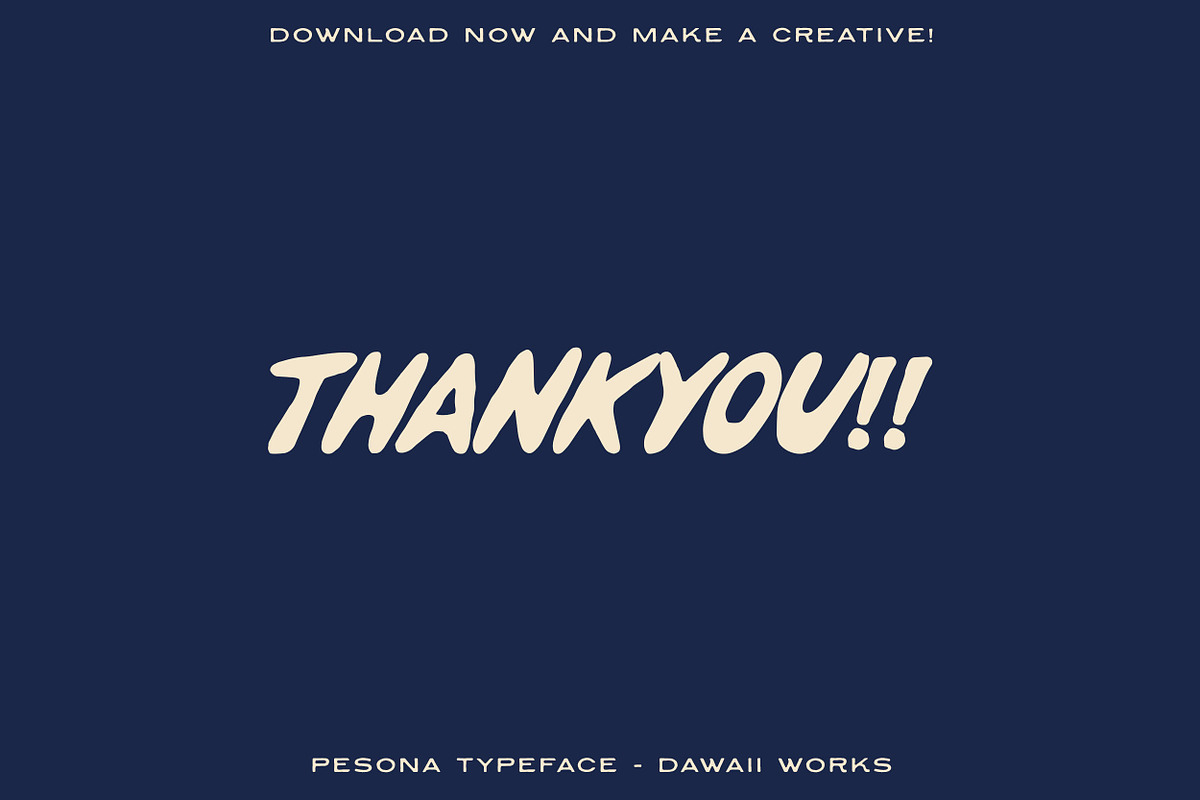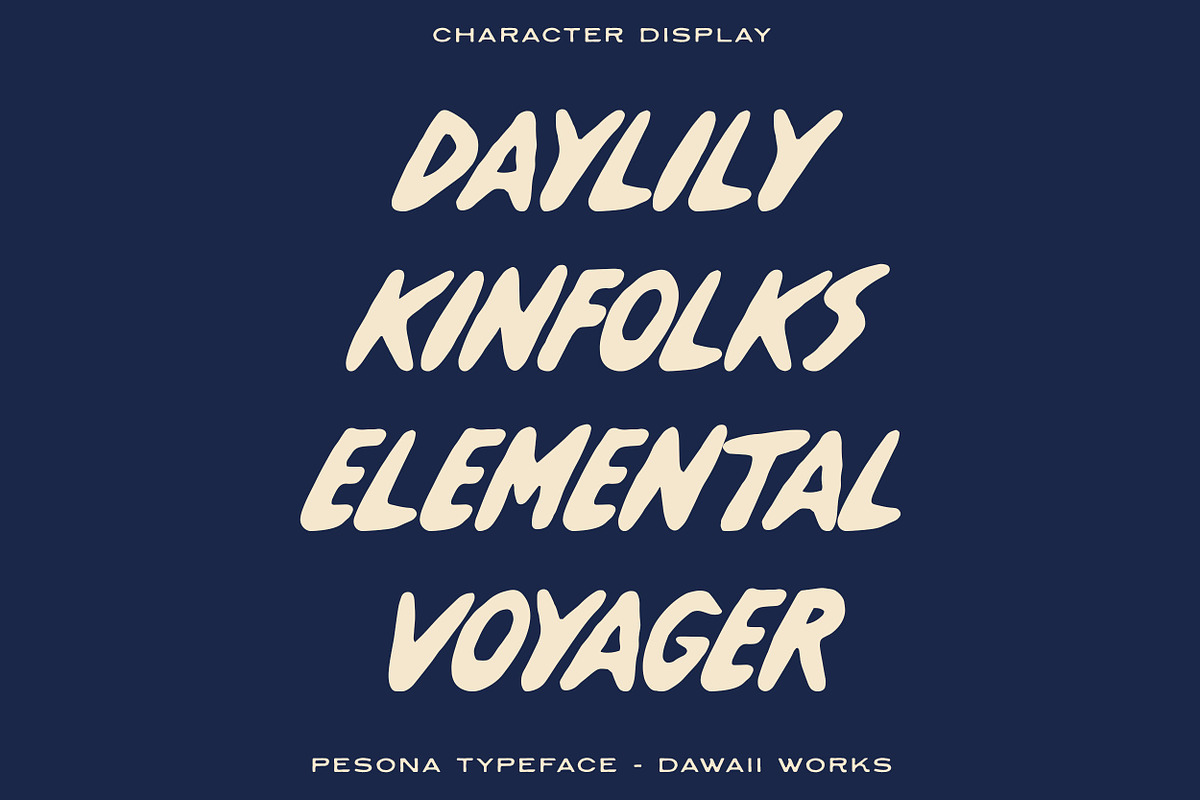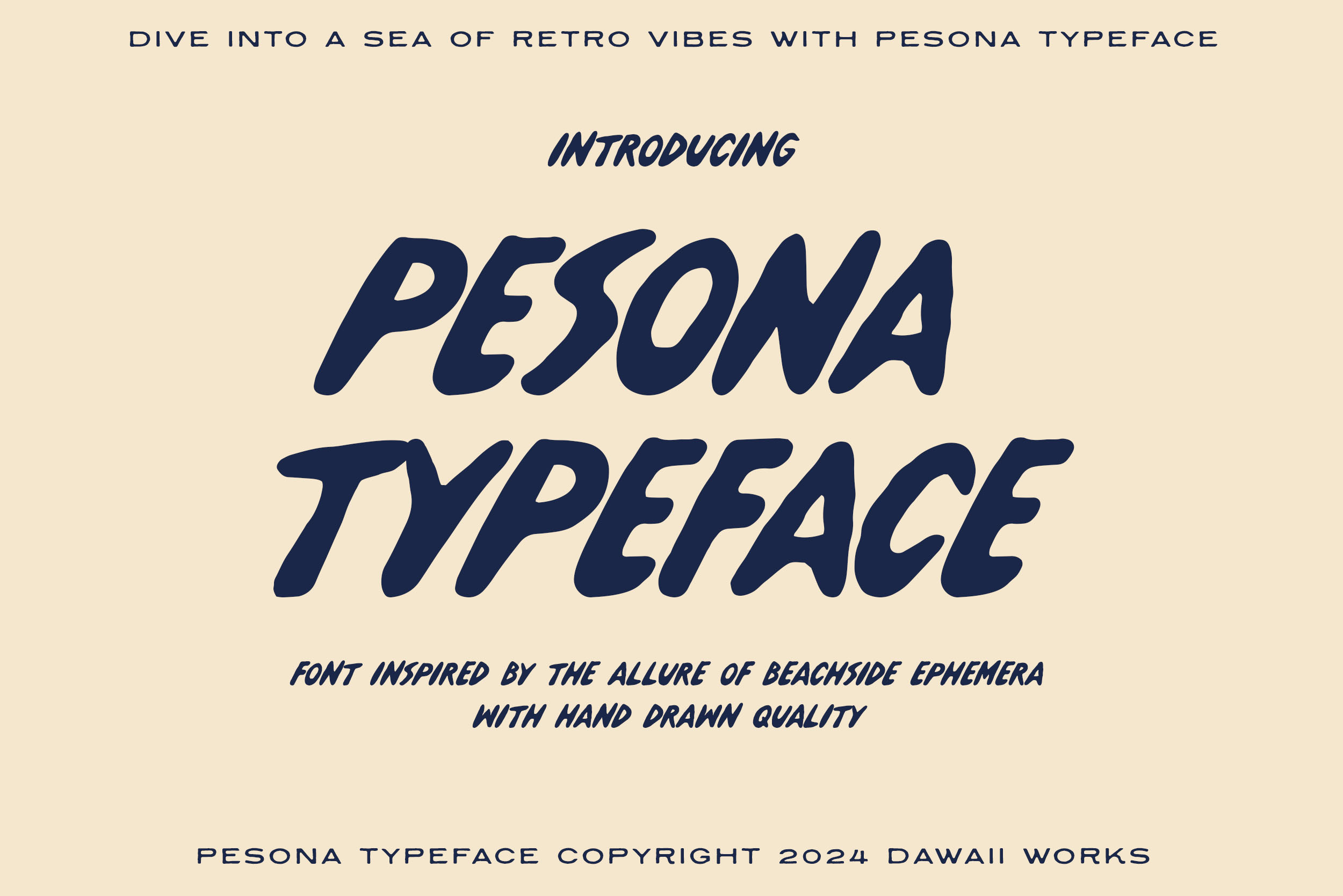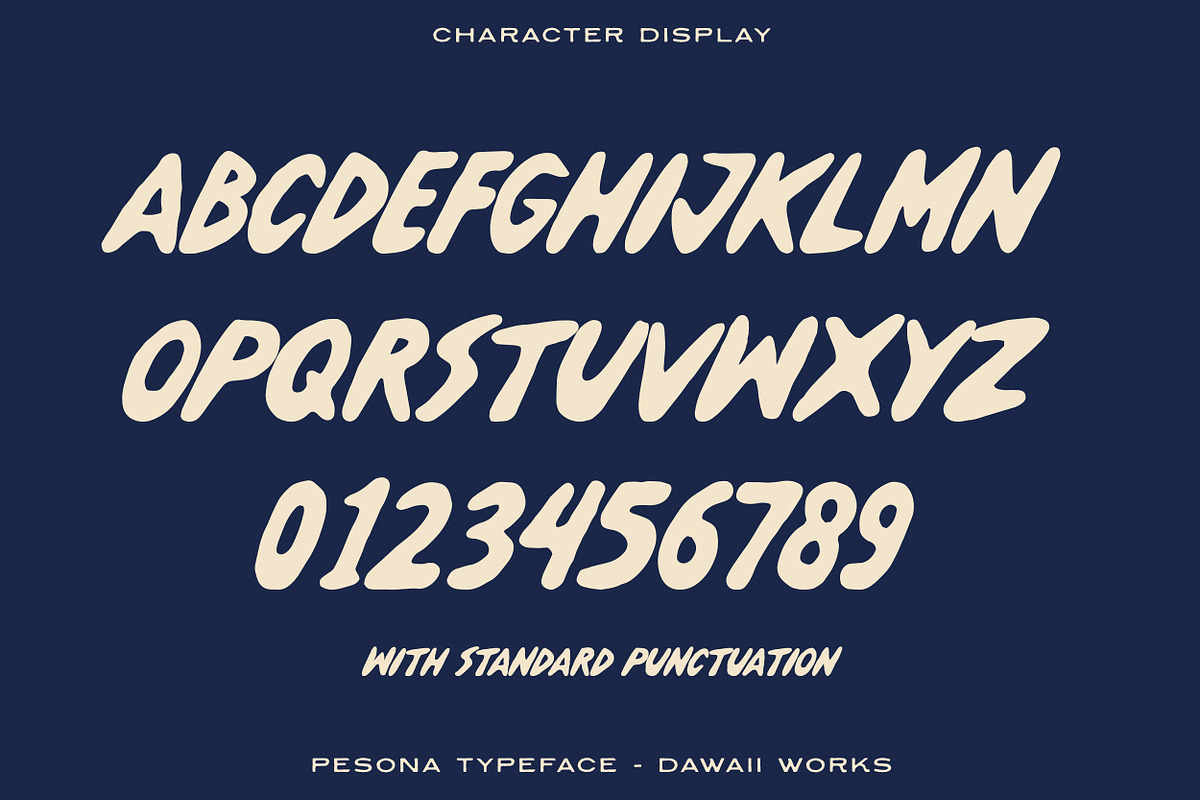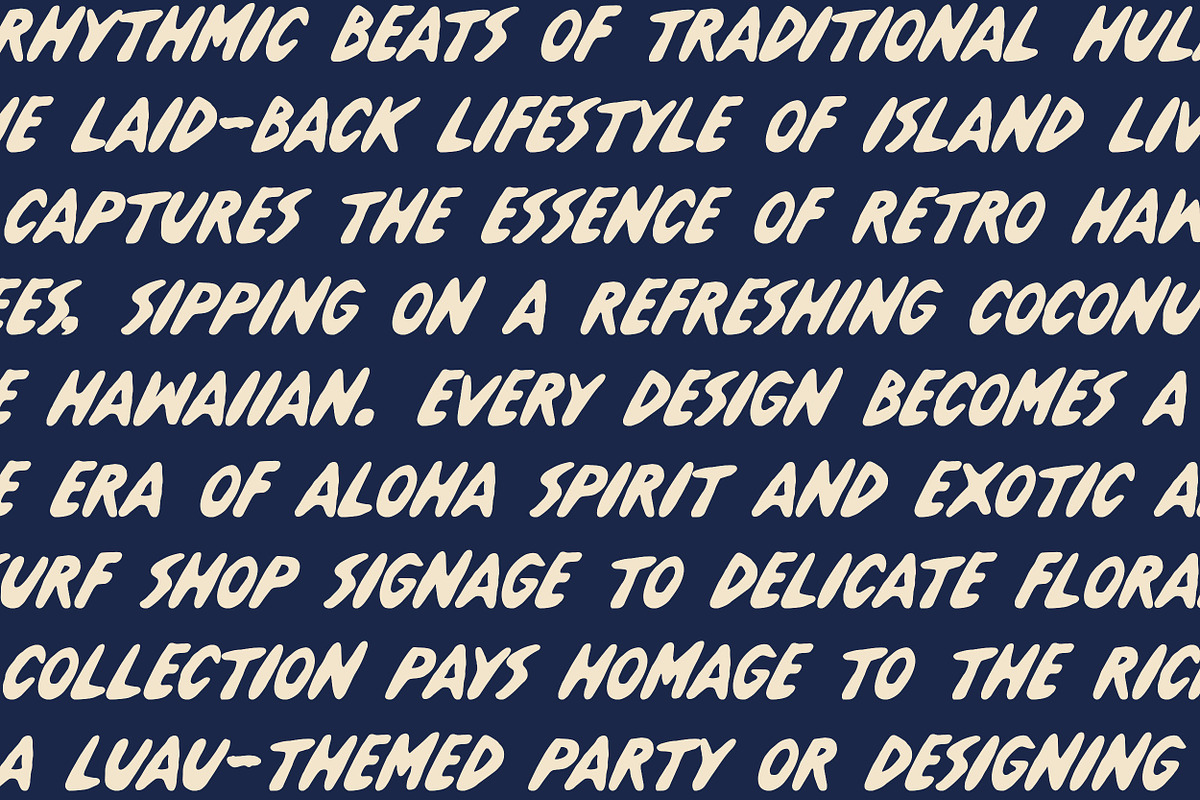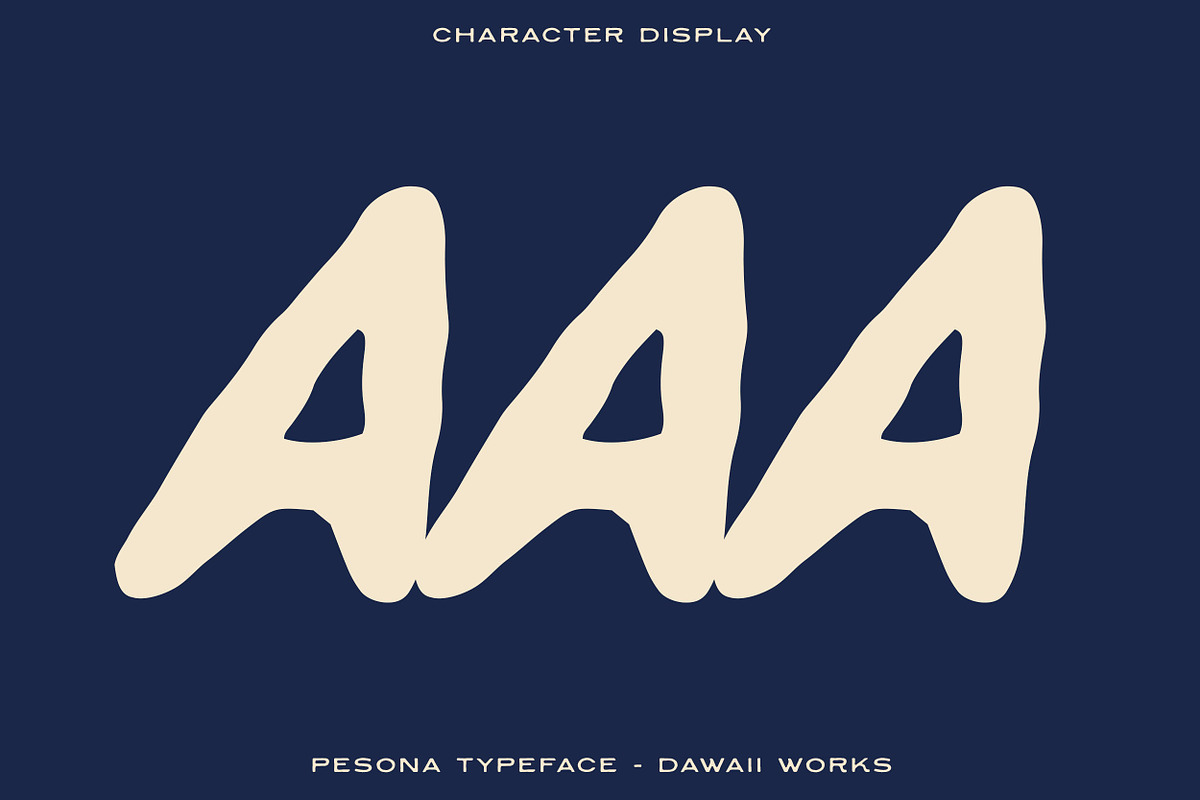
Pesona Typeface
Introducing Pesona Typeface : where vintage charm meets contemporary flair in a font inspired by the allure of beachside ephemera. With its slanted style, Pesona Typeface adds a dynamic edge to your designs, evoking the carefree spirit of coastal getaways and sun-soaked adventures.
Whether you're designing posters, logos, or branding materials, Pesona Typeface lends an air of sophistication and nostalgia, transporting viewers to a bygone era of seaside charm. Embrace the warmth and character of Pesona Typeface and let your designs bask in the timeless allure of vintage beach aesthetics.